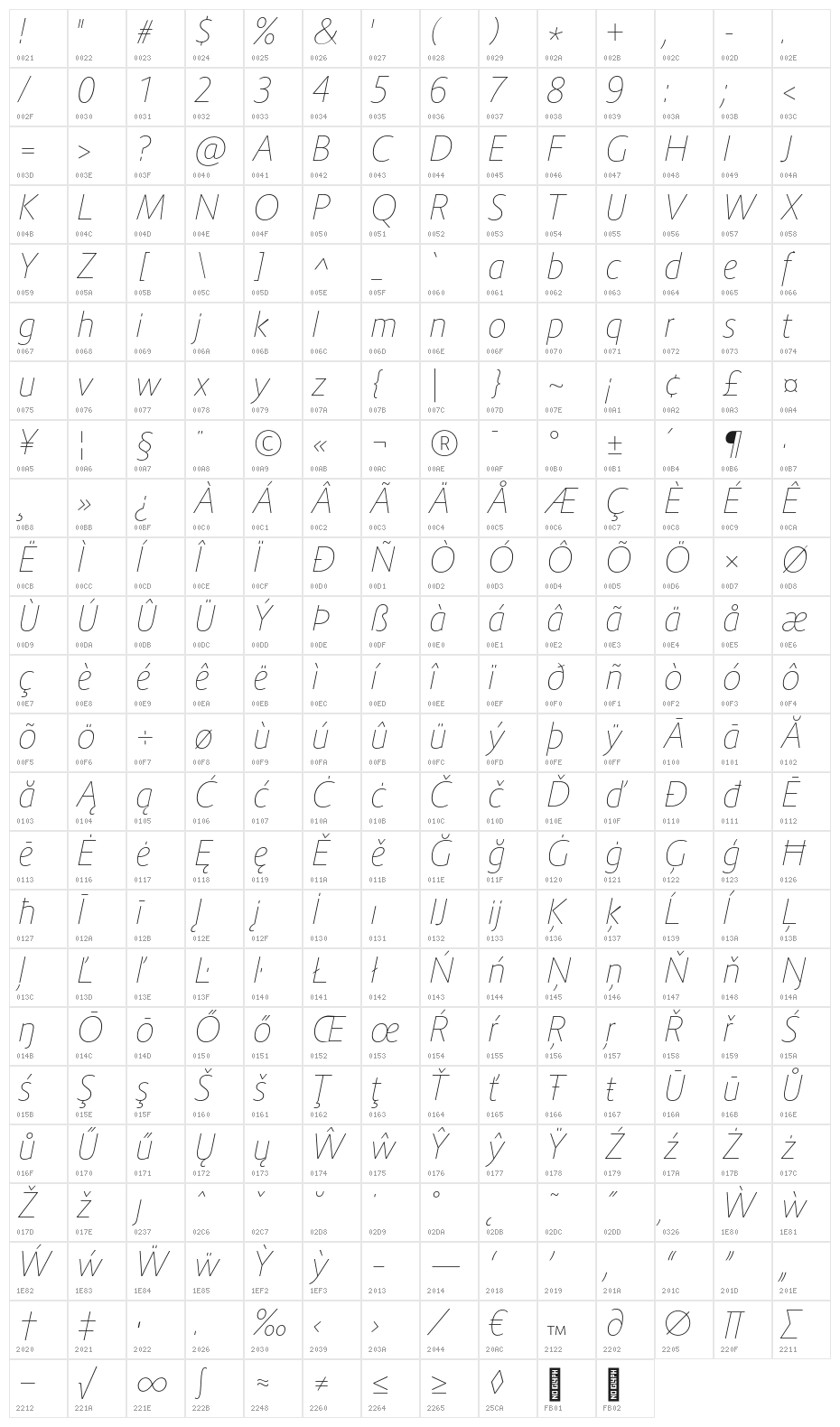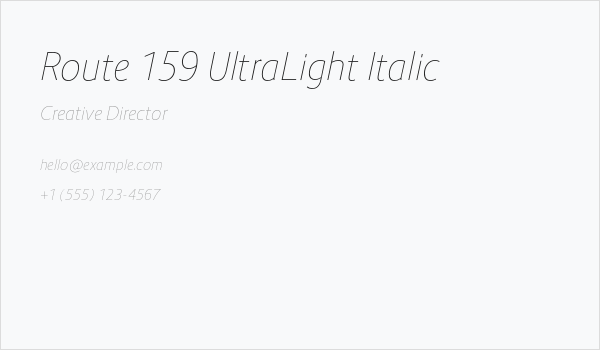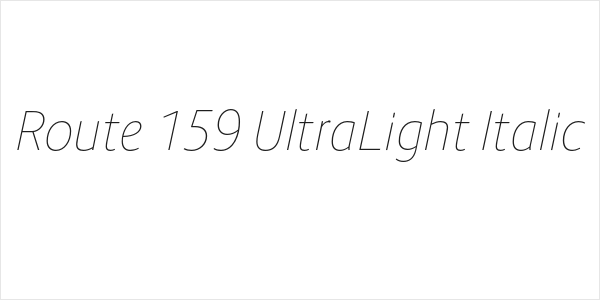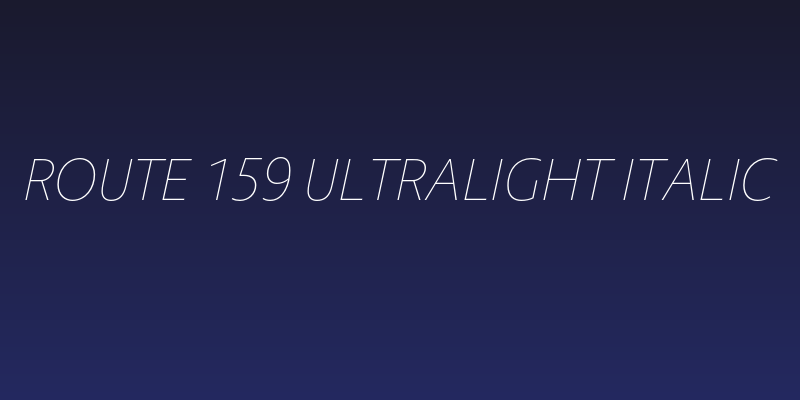
Route 159 UltraLight Italic Font
Route 159 UltraLight Italic Description
This font features an ultra-lightweight and elegant design, characterized by its sleek and elongated letterforms. The italic style adds a sense of motion and fluidity, making it visually appealing and dynamic. The characters are crafted with precision, maintaining a consistent thin stroke throughout. The font's modern aesthetic is enhanced by its minimalistic approach, providing a clean and sophisticated look. It includes a full set of uppercase and lowercase letters, numerals, and a variety of special characters, ensuring versatility in usage.
| Proposed Projects | Ideal for fashion magazines, luxury branding, elegant invitations, and modern web design. |